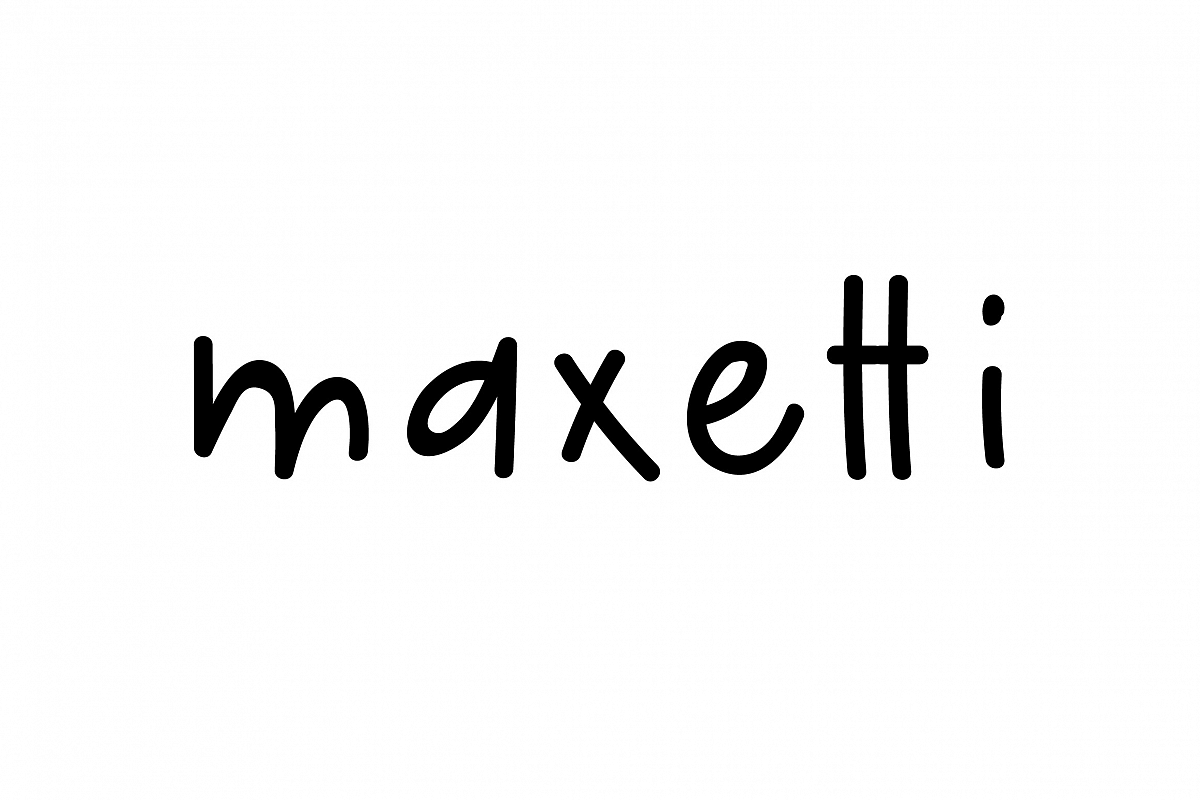
maxetti | handwritten
maxetti is an adorable handwritten sans serif font. By changing the upper and lowercase letters you can get a unique handwriting style every single time.
It is perfect for: wedding invitations, quotes, poster design, business cards, for logos and more! Play with it, enjoy it! :)